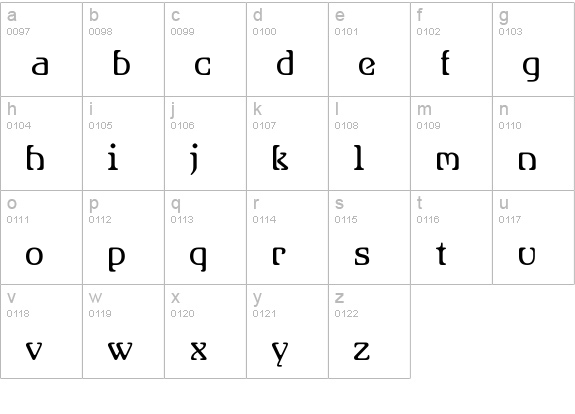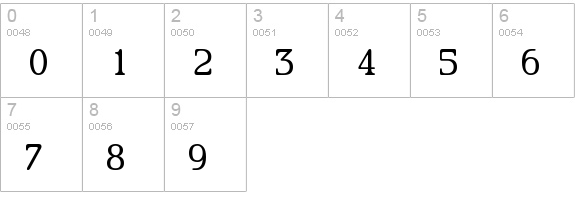
AllHookedUp Font Details
AllHookedUp font is a charming and playful typeface that will add a touch of whimsy to any design project. Its flowing lines and whimsical curls give it a unique and eye-catching appearance that is perfect for a variety of applications, from invitations to branding to social media graphics. This font is sure to make your text stand out and grab attention. The best part? AllHookedUp font is completely free to download at FontsMarket.com. Now you can add a fun and creative touch to your projects without breaking the bank. Don't miss out on this fantastic opportunity to enhance your designs with this delightful font. Download AllHookedUp today and let your creativity run wild!